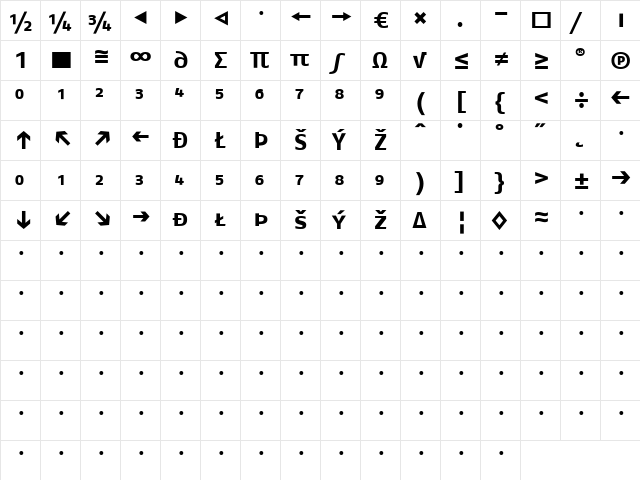
FagoEx Bold Font Preview
FagoEx Bold
FagoEx Bold Font Details
| Foundry | Ole Schaefer, . Published by FontShop International for FontFont Release Fago Extended is a trademark of FSI Fonts and Software GmbH |
Design Context for FagoEx Typeface
FagoEx takes a measured approach to typography — its balanced proportions and neutral character make it a reliable workhorse for both digital and print work. The heavy weight commands attention and anchors typographic hierarchies.